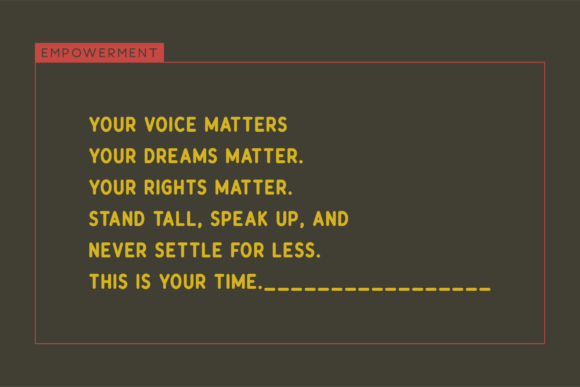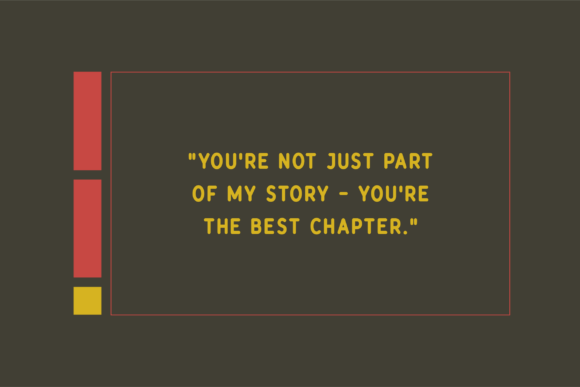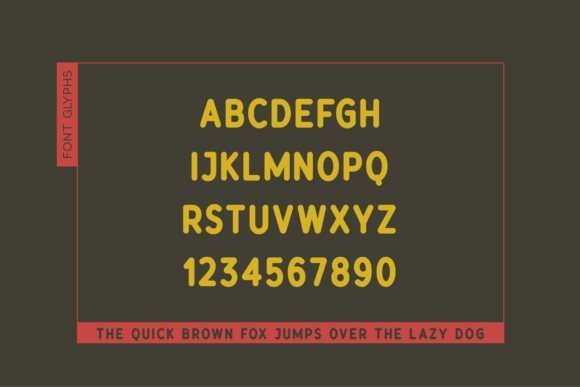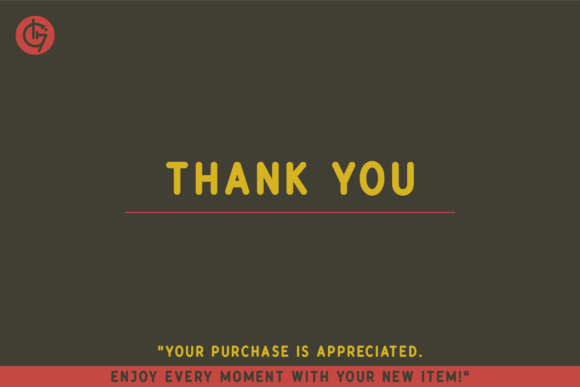
The Ultimate Creative Companion: Unleashing the Power of Gelvetica Font
There’s nothing quite like the thrill of staring at a blank page or a blank screen, waiting for inspiration to strike. For designers, artists, and creatives, this moment is a familiar one – a chance to bring an idea to life and watch it transform into something truly special. And what better way to add that extra spark to your project than with the perfect font?
Enter Gelvetica Font, the all-caps wonder that’s taking the creative world by storm. With its playful charm and eye-catching style, Gelvetica Font is the perfect companion for social media content, crafting, and countless other projects. Whether you’re looking to add a touch of whimsy to your T-shirts or decal designs, or want to make a statement with invitations and more, Gelvetica Font is the ultimate creative tool to make your content shine.
Gelvetica Font Key Features
- Unique Characteristics: Geometric sans-serif design, clean lines, and a neutral tone make it highly legible and versatile for use in various contexts
Gelvetica Font Review
As a designer, I have had the chance to work with a wide variety of fonts, but my experience with Gelvetica has been a bit of a mixed bag.
- Neutral Neutrality: Gelvetica is a sans-serif font that embodies the essence of neutrality, making it a great choice for designs where you want to avoid distractions.
- Legibility: The font is highly legible, even at small sizes, making it a great choice for body text.
- Timeless: Despite being designed in the 50s, Gelvetica remains a timeless classic, making it a staple in many designers’ collections.
- Lack of Personality: While Gelvetica’s neutrality can be a strength, it can also make it feel a bit sterile or boring.
- Not Suitable for Emphasis: The font’s lack of flair makes it less suitable for use in titles or headings where you want to draw attention.
Gelvetica is a solid, reliable font that gets the job done, but it’s not the most exciting choice. If you’re looking for a font that will blend into the background and not draw attention away from your content, then Gelvetica is a good choice. However, if you want a font that will make a statement, you might want to look elsewhere.